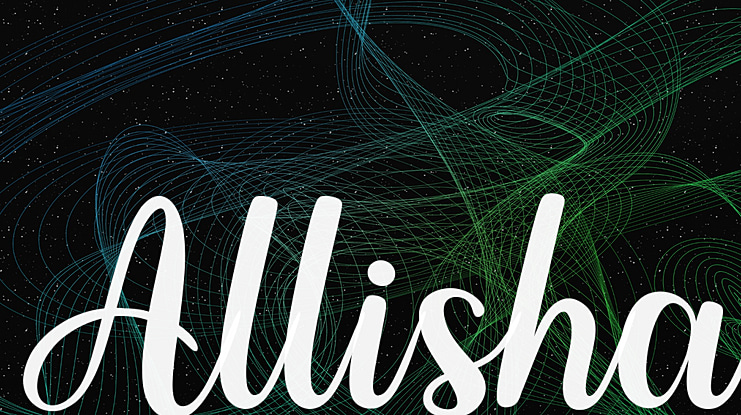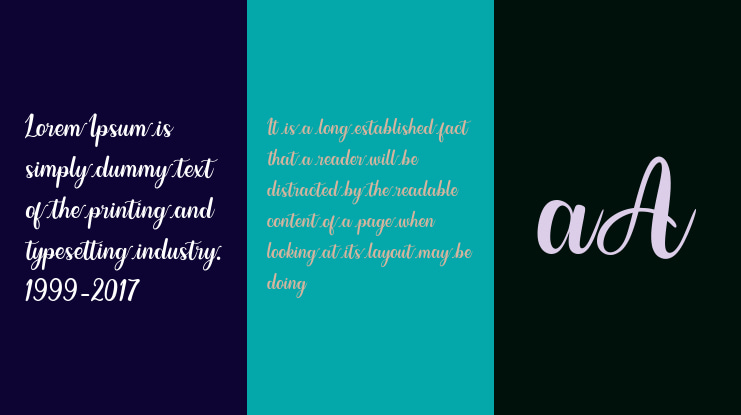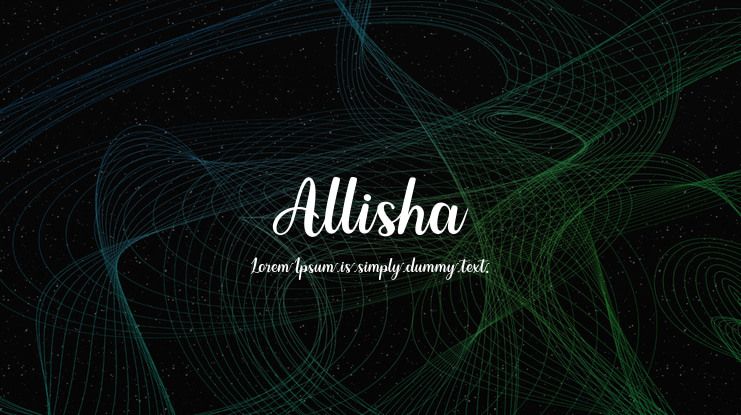
Allisha Font
Allisha is a beautiful handwritten font with floral elements. Its natural and unique style makes it incredibly fitting to a large pool of designs. The only limit is your imagination!